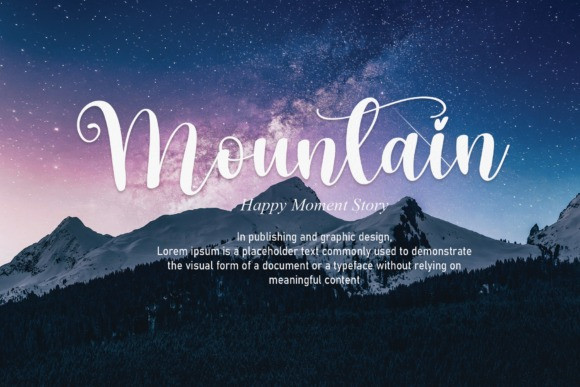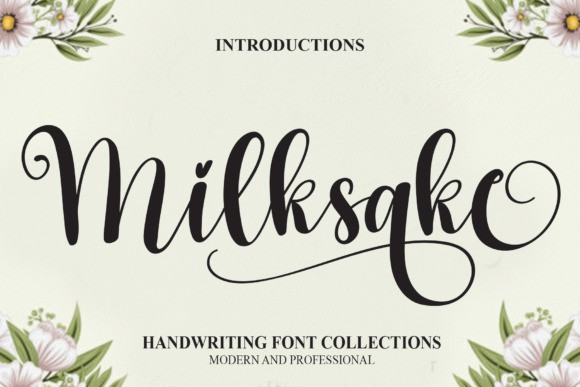
Milksake Font
Milksake Font is a whimsical and romantic handwritten font that will give you an extraordinary experience! Use it for wall displays, wedding invitations, social media post logos, advertisements, product packaging, product designs, labels, photography, watermarks, invitations, stationery, or any other project that requires a handwritten taste.